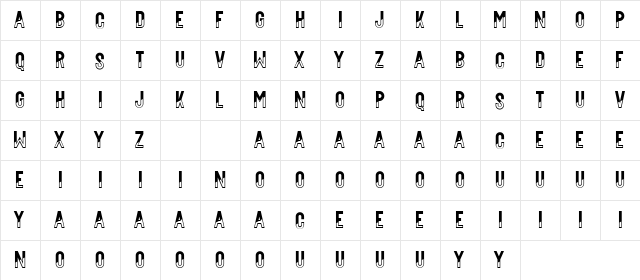
Buffalord Demo Gradient Font Preview
Buffalord Demo Gradient
Buffalord Demo Gradient Font Details
| Style | Gradient |
| Foundry | NihStudio |
| Designer | Fajar Saepul Rohman & Suci Anita |
Design Context for Buffalord Demo Typeface
Buffalord Demo is a composed and adaptable typeface that performs quietly and consistently across a wide range of design contexts.